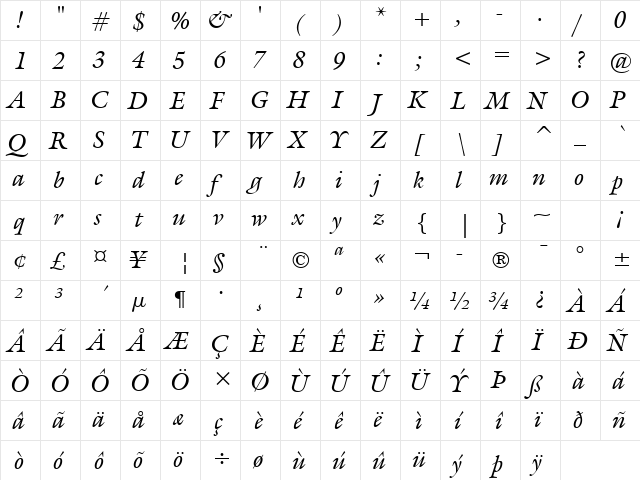
Galliard BT Italic
Design Context for Galliard BT Typeface
Galliard BT offers clean, dependable letterforms without strong stylistic allegiance, making it a practical choice for designers who need flexibility. The dynamic lean of this cut emphasises speed and emphasis in any layout.
Pro Tip: Try Galliard BT for annotation and caption copy alongside an upright companion — the contrast in angle creates a dynamic but ordered typographic system.